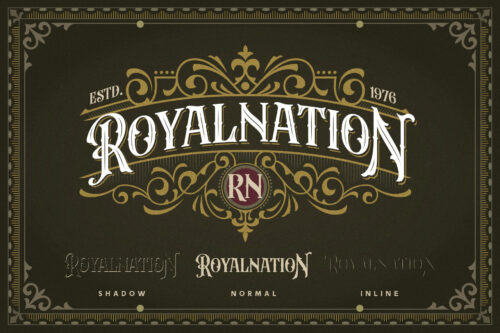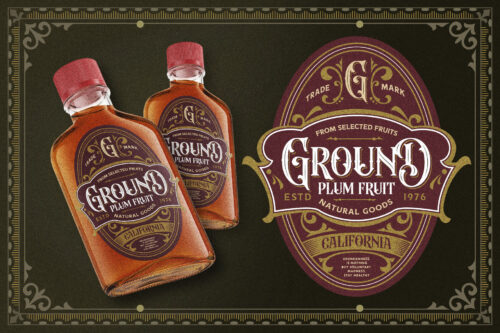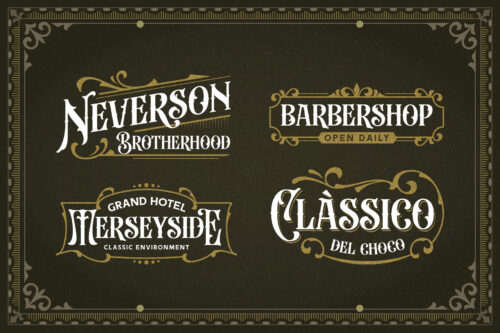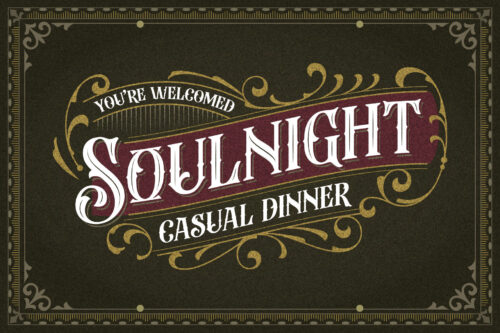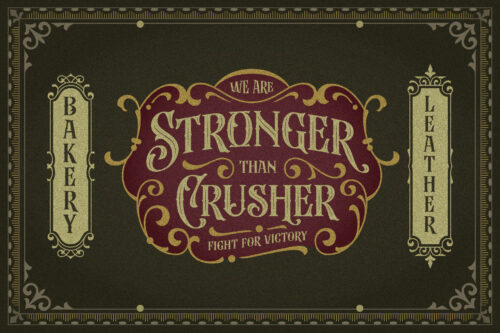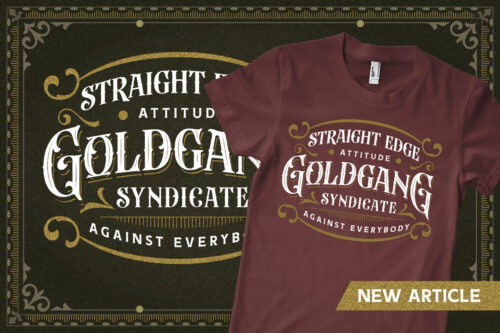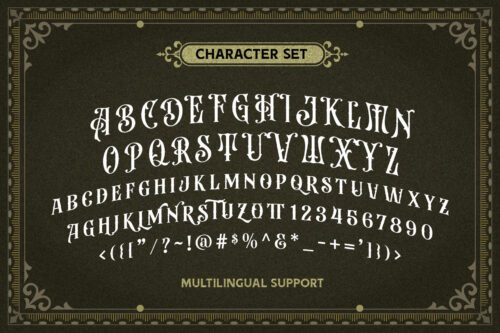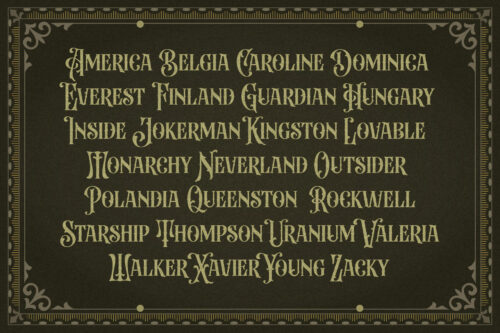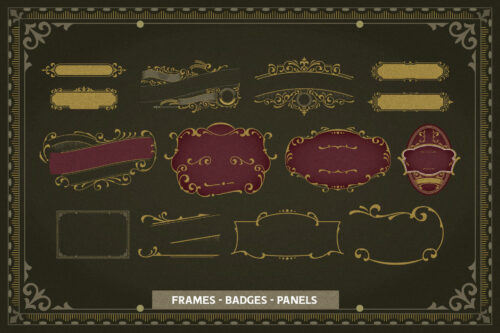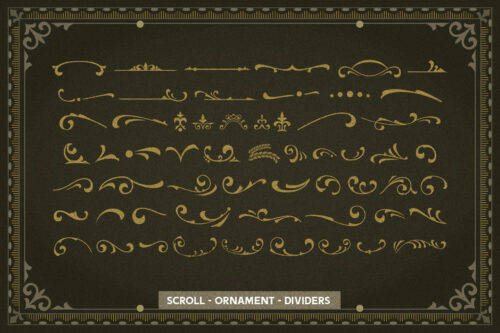
Introducing our new exploration Beardsons, another vintage-inspired font with the additional effect: Normal – Inline – Shadow, packed as the layered font. Collected from many references such as vintage signage, logo, badges, and old fashioned graphics. Beardsons is An all-caps font, carefully crafted with a high ornamental taste.
Beardsons is perfect for many display purposes. You can use this font for poster, label, logo, signboard, t-shirt, book cover, decoration, merchandise, and more! Multilingual support with extra ornaments included!
- Uppercase
- Smallcaps
- Numbers & symbols
- Stylistic alternates
- Accented characters: ÀÁÂÃÄÅÆÇÈÉÊËÌÍÎÏÑÒÓÔÕÖØÙÚÛÜÝÞŒŠŽßàáâãäåæçèéêëìíîïñòóôõöøùúûüýþÿœšž